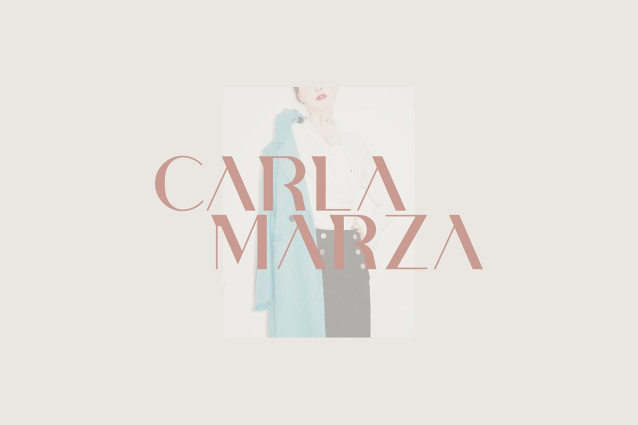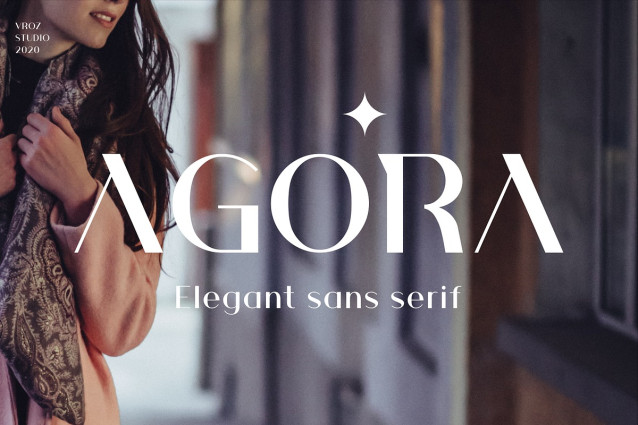
Agora Font
Agora Font is a gorgeous sans-serif typeface its classically elegant and inherently modern, will perfect for many project: fashion, magazines, logo, branding, photography, invitations, wedding invitation, quotes, blog header, poster, advertisements, postcard, book, websites, etc.